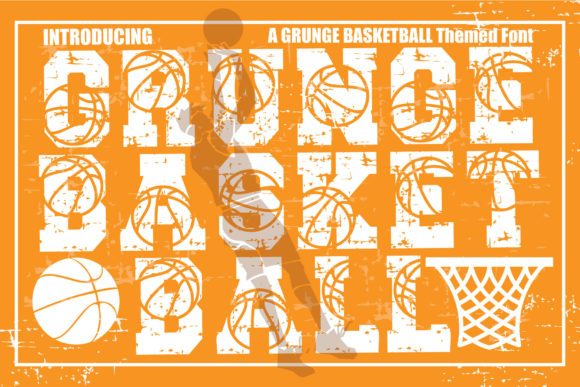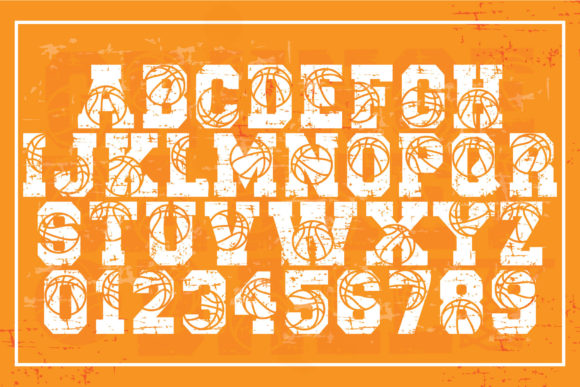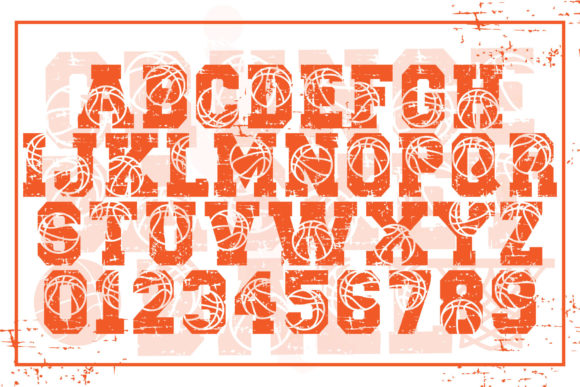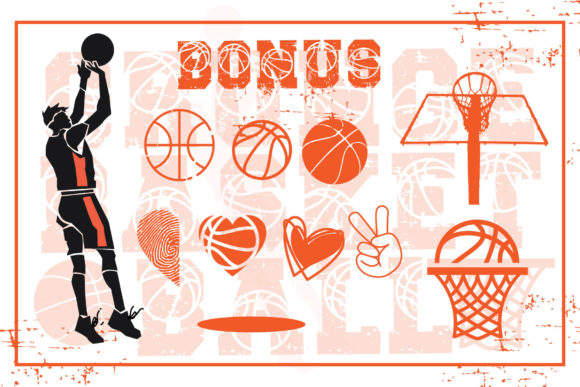
Grunge Basketball Font
About the Grunge Basketball Font
Introducing the Grunge Basketball Font, a beautifully crafted typeface designed to elevate your creative projects. Grunge Basketball is a bold and assertive display font. Sharp looking and cool, this font will truly inspire each of your works.
Use this font for each of your sports-related designs and explore its endless possibilities.
Grunge Basketball excels as a headline font for projects needing a strong, energetic presence. Ideal applications include posters, sports branding, and packaging for products targeting a younger, active demographic. Its bold style also works well for short, impactful statements in logos or promotional materials. However, its highly stylized nature makes it unsuitable for body text or UI elements where readability is paramount. Avoid using it for large amounts of text or in situations requiring fine detail.
Pairing Grunge Basketball effectively depends on the desired balance. For a bolder, more aggressive feel, consider pairing it with a clean, geometric sans-serif like Futura or a sharp, condensed sans-serif. To soften its impact and create visual contrast, a classic serif like Garamond or a more playful script font could work well.
The font’s core personality is energetic and rebellious, conveying a sense of youthful dynamism and street-style attitude. This makes it particularly well-suited for brands focused on sports, streetwear, or action-oriented products.
Grunge Basketball Font Usage Examples
Grunge Basketball Font Example